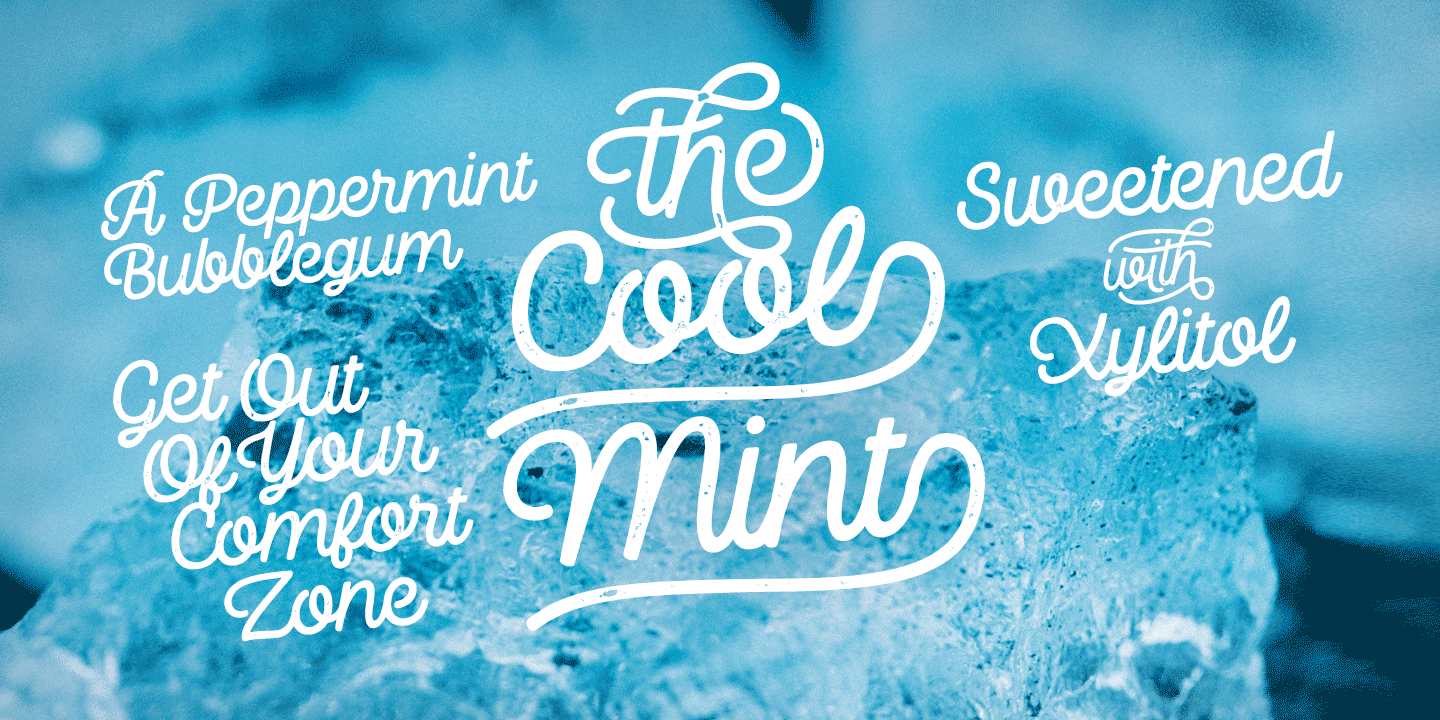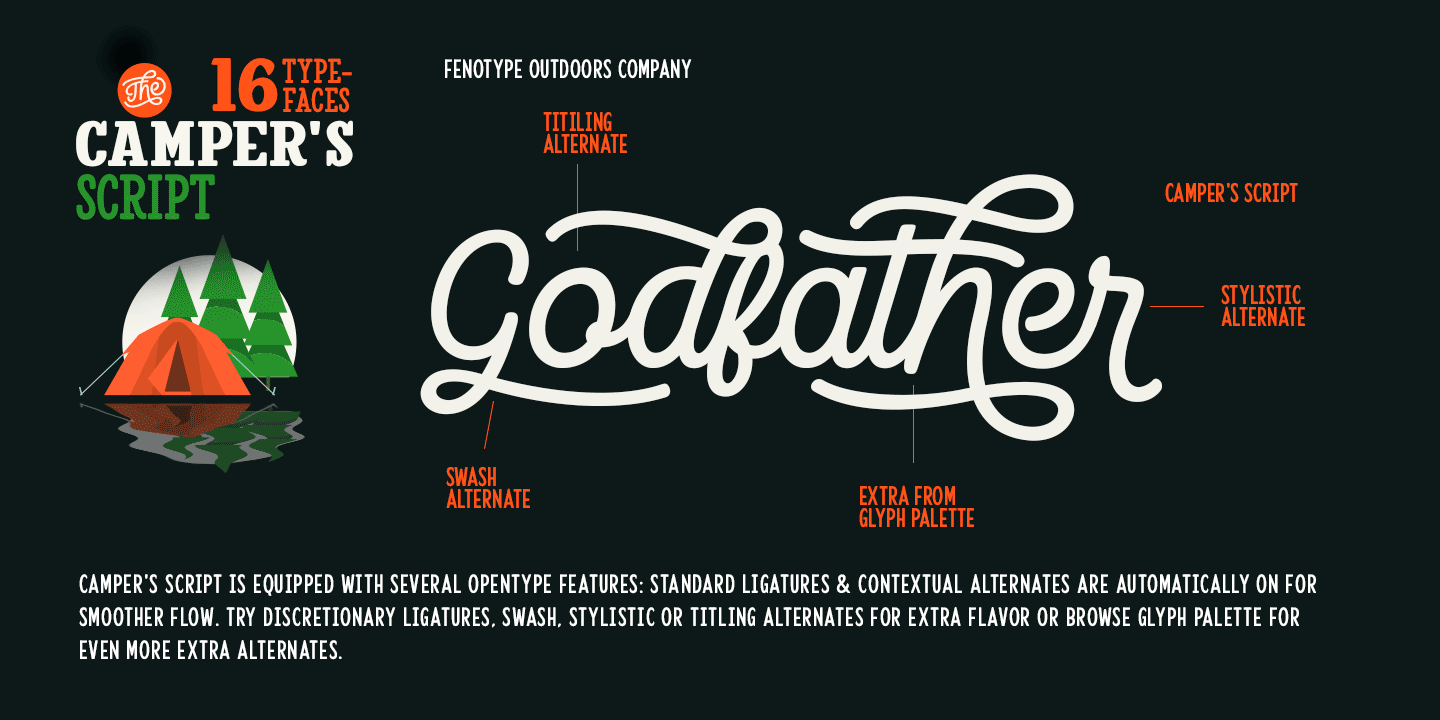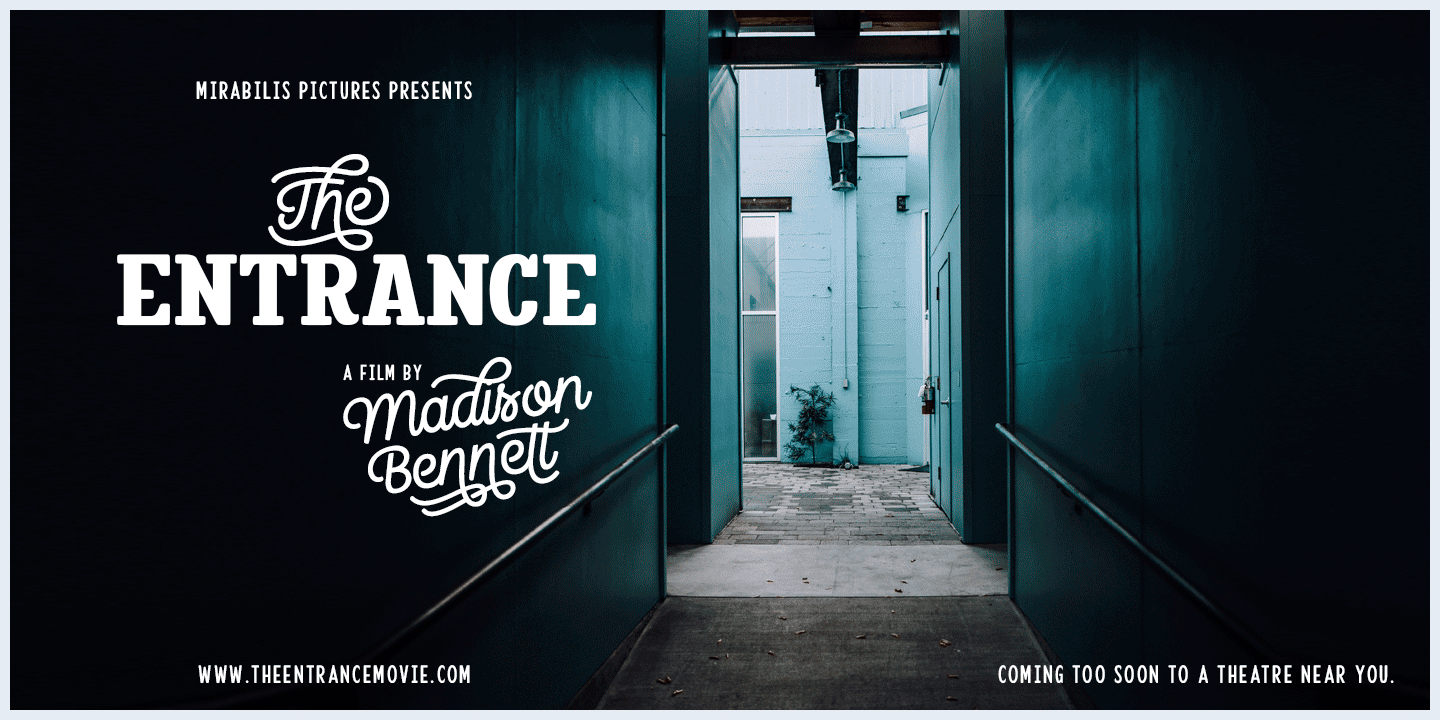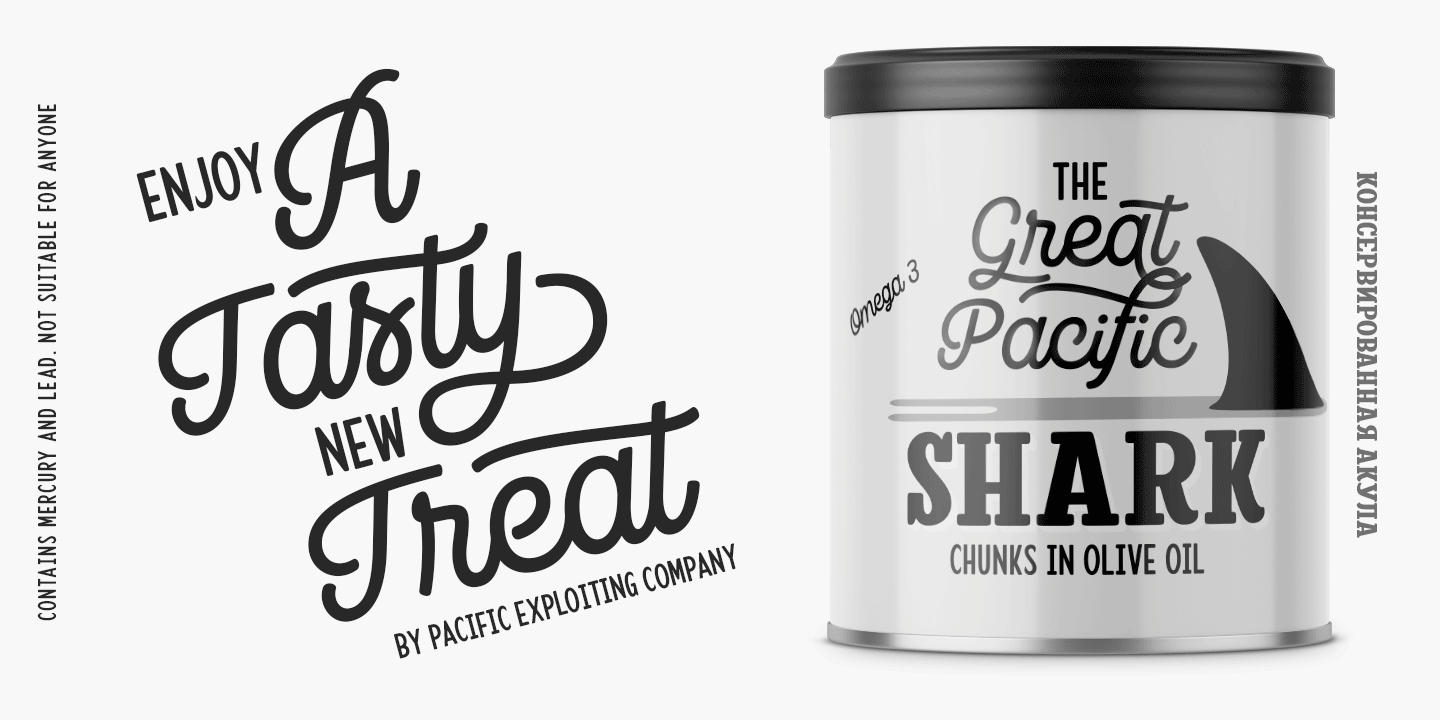
All Camper’s fonts have a coherent style of solid forms and soft edges. They all play well together but work as themselves too. Camper’s Print is the same family with rugged “printed” edges and print texture.